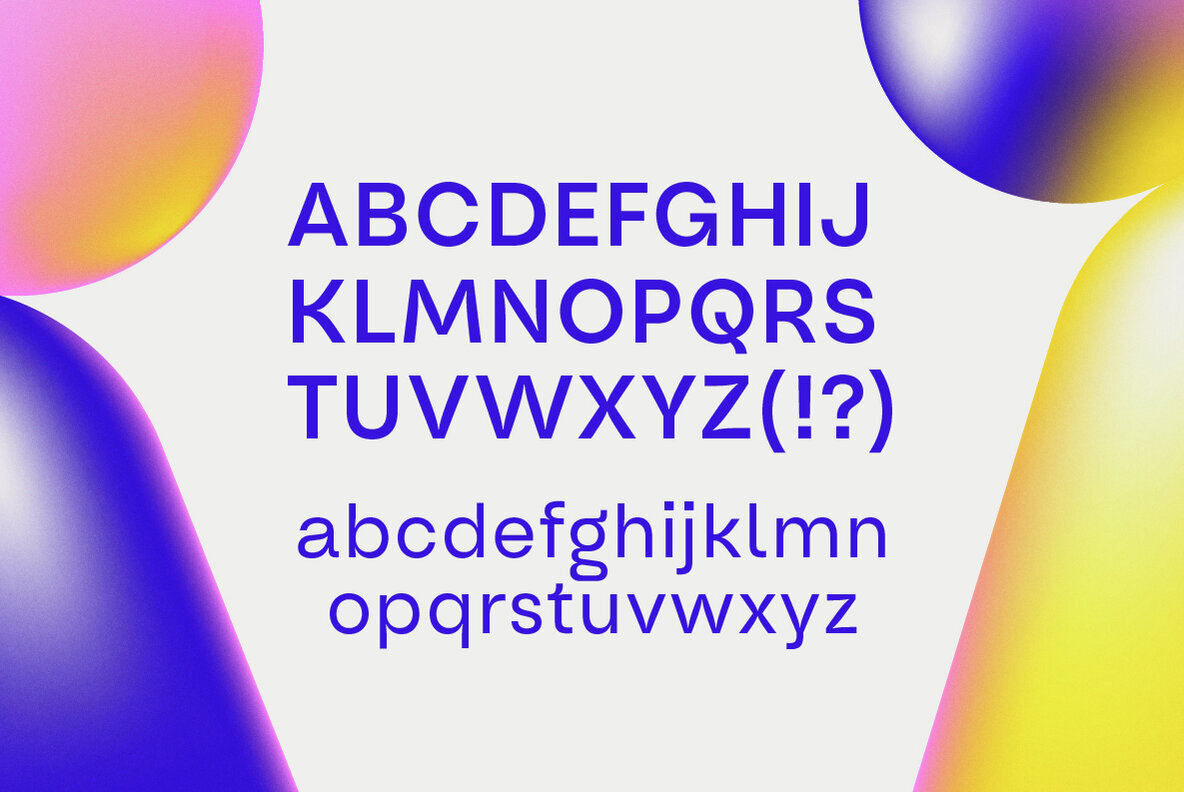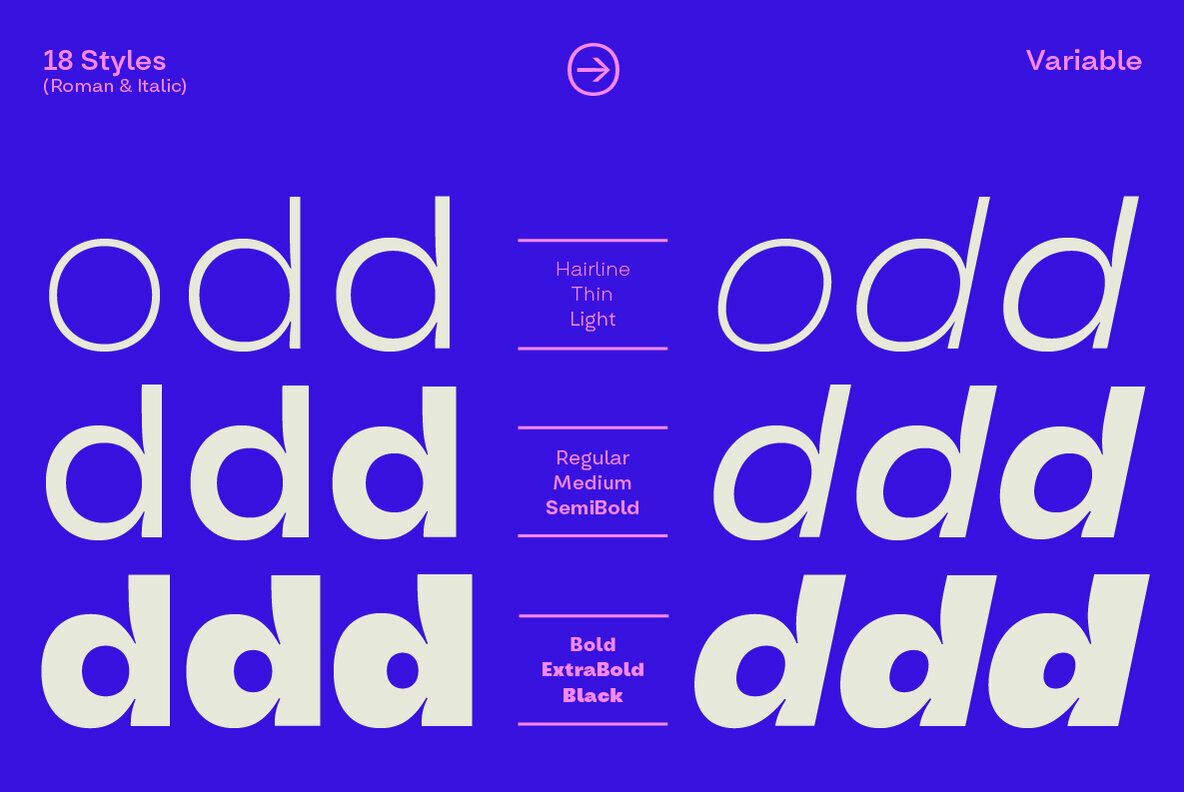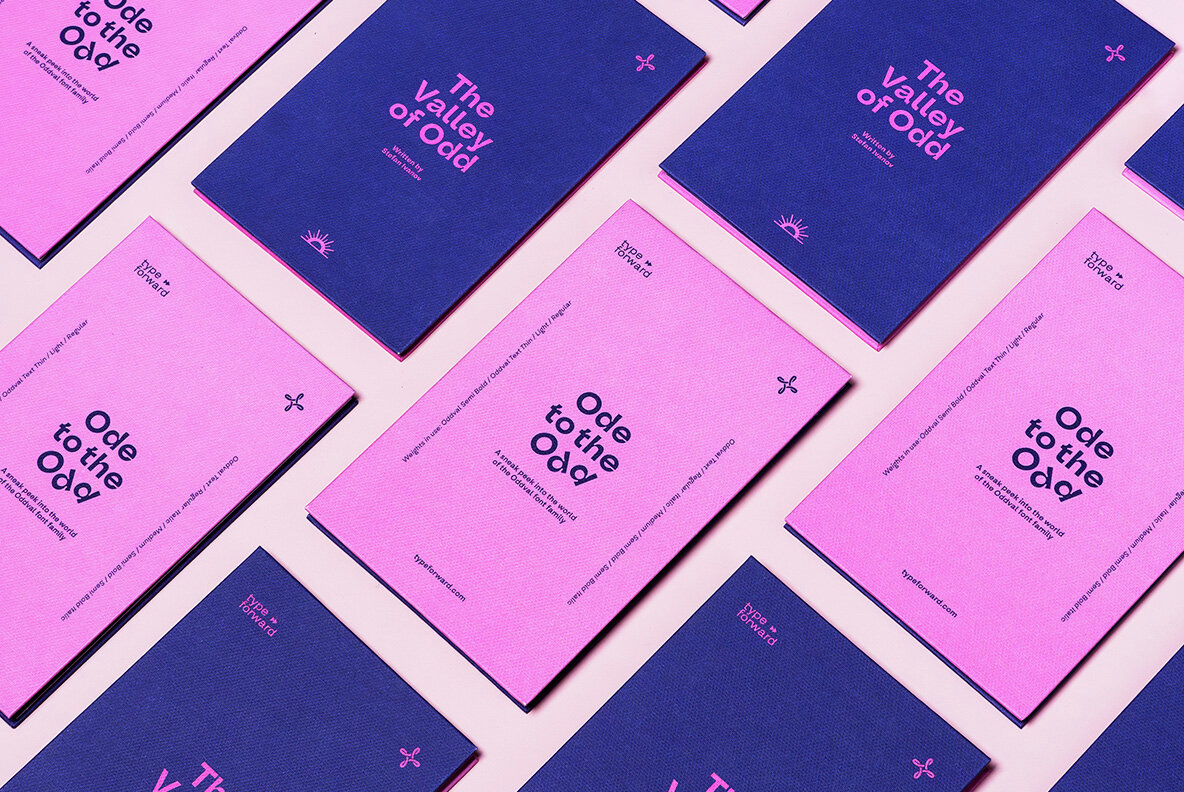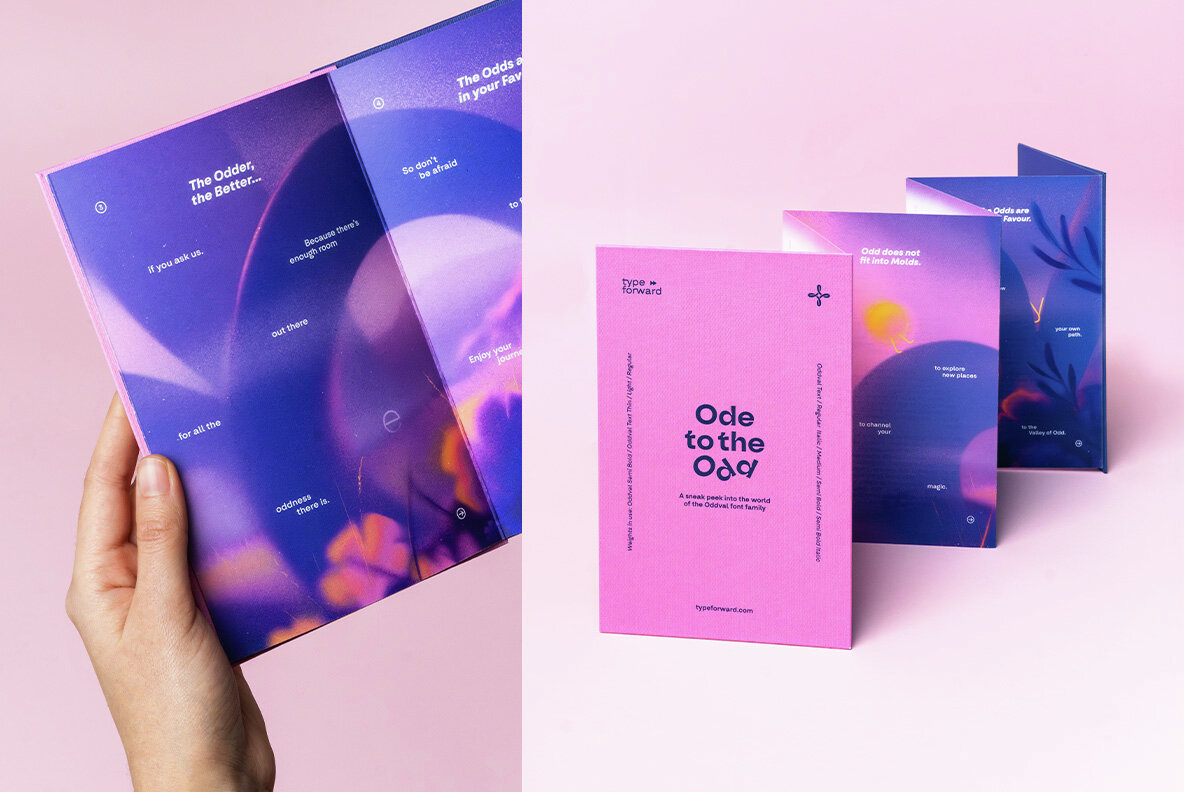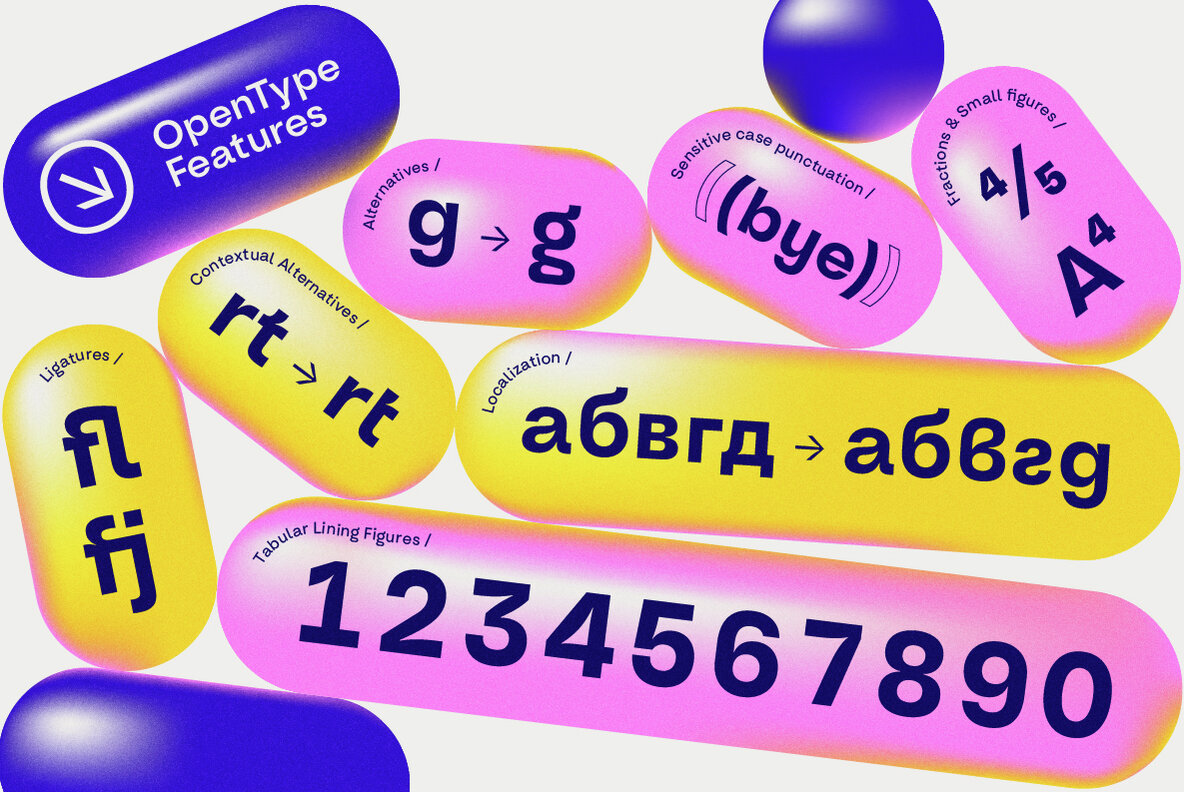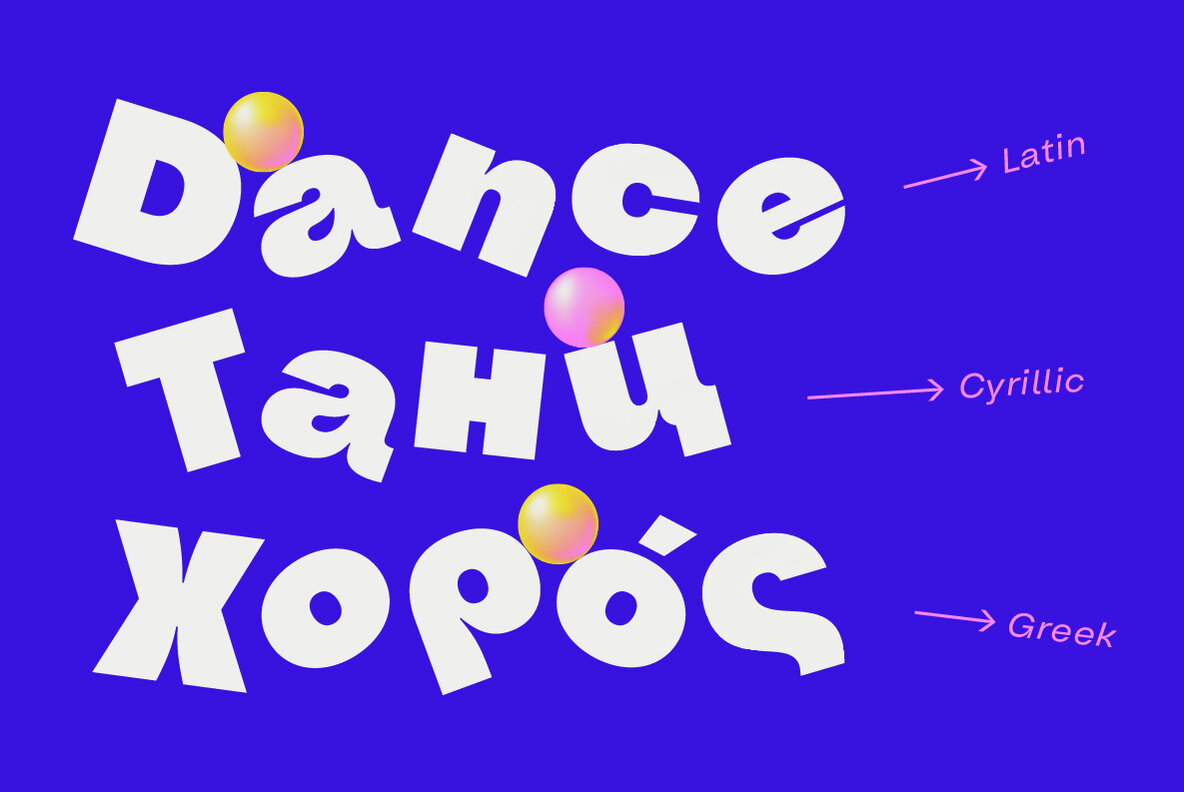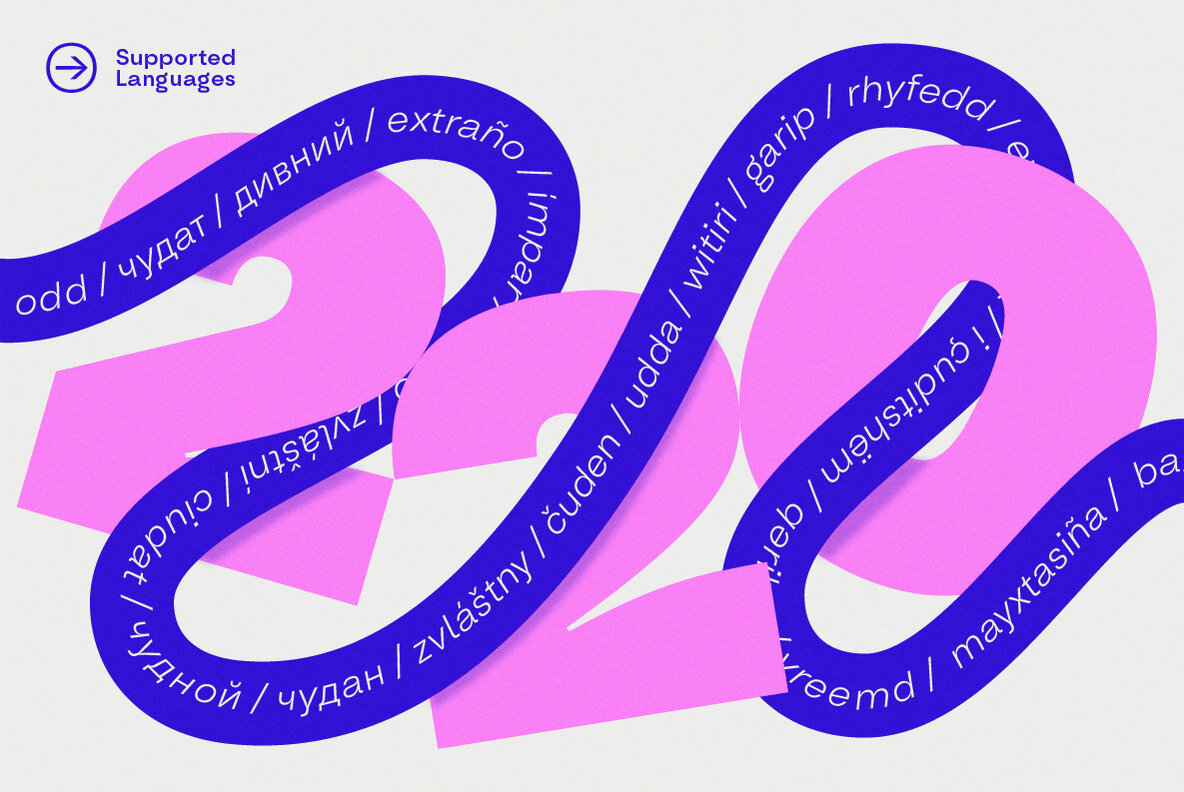
Oddval Text Font
Refined legibility paired with artistic aesthetics, the Oddval Text Extension is an inspired creation from the renowned designer, Type Forward. Sitting as a pinnacle in the Oddval font family, it optimizes readability for small sizes whilst maintaining the signature aesthetics that it’s inevitably known for. The testament of this expansion lies in its seamless blend of beauty and purpose, tailored specifically for graphic designers and marketing firms yearning for a font exuding practical usability without conceding artistic flair. Built with a high x-height and minimal stroke contrast, each glyph of the Oddval Text Extension is designed to resonate on a variety of media. It is thoughtfully constructed, boasting recalibrated curves and balanced spacing that ensure visual harmony in every application. The design focuses on legibility and is diligently crafted to ensure a fluid reading flow, offering a comforting experience to the reader's eye, regardless of the screen size. Key Features:Introducing the Oddval Text Extension: Aesthetic Functionality Adorned in Every Glyph